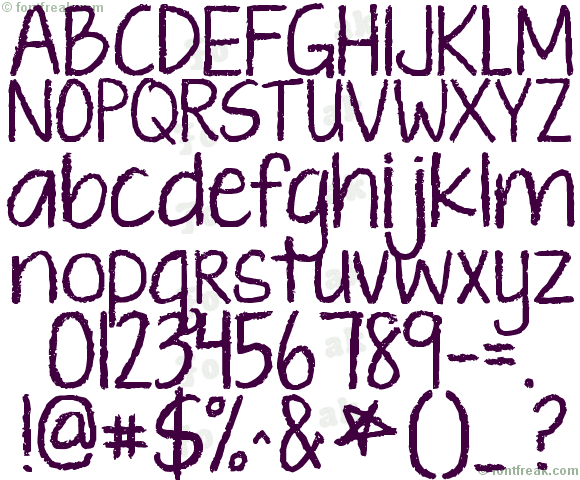
KG Ten Thousand Reasons
About KG Ten Thousand Reasons
KG Ten Thousand Reasons by Kimberly Geswein is a charming handwritten font that brings a personal touch to any design project. This font features a playful, irregular style with a medium stroke weight, giving it an authentic, organic feel. The letters vary slightly in height and width, enhancing its handwritten appearance, while the spacing is thoughtfully balanced, making it easy to read in various applications. Its whimsical nature is underscored by subtle decorative elements that add flair without overwhelming the text, making it a versatile choice for a wide range of projects.
Ideal for use in wedding invitations, greeting cards, and personalized stationery, KG Ten Thousand Reasons resonates particularly well with those looking to create a warm, inviting atmosphere. It also shines in branding materials for small businesses, where a unique identity is crucial, and can enhance social media graphics, giving a friendly vibe to posts. Additionally, it is suitable for use in children's books or educational materials, where a fun and engaging aesthetic can capture young readers' attention.
What sets the KG Ten Thousand Reasons font apart is its ability to convey warmth and personality, making it stand out in a sea of more traditional typefaces. Whether you’re crafting a heartfelt invitation or designing a standout logo, this font infuses your project with a sense of authenticity. Don’t miss the opportunity to enhance your creative toolkit with this delightful font—KG Ten Thousand Reasons font free download is just a click away.